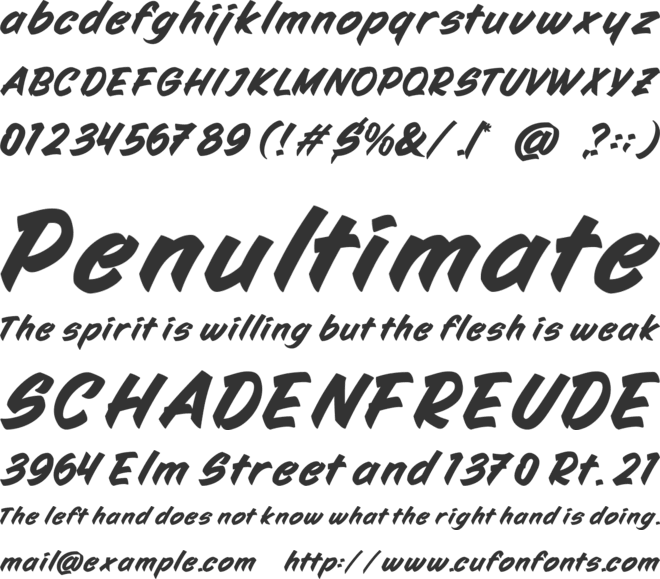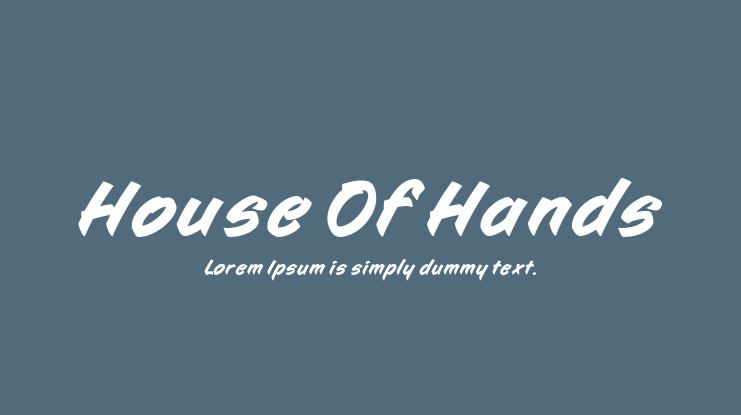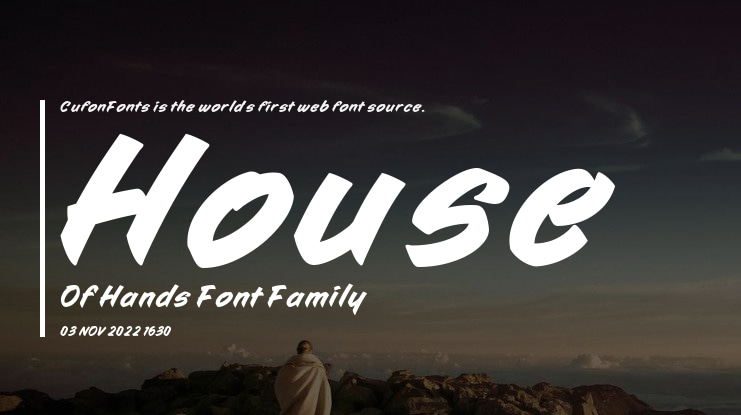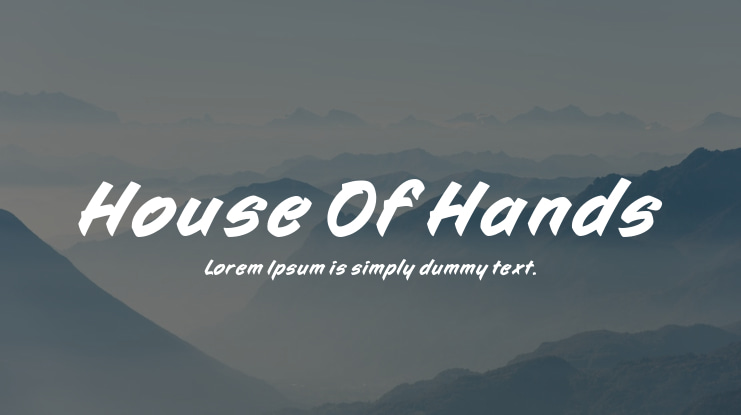
House Of Hands Font
Ny Indrayana
The House of Hand Brushed Font embodies a spontaneous and handcrafted style with a smooth, flowing brush effect that suggests quick yet controlled strokes. This handwritten typeface exudes a cool, modern vibe, with each character designed to infuse any design with lively energy. Ideal for art posters, signage, or branding materials, it skillfully combines a casual look with sophistication, imparting a fresh, artistic feel to any project.